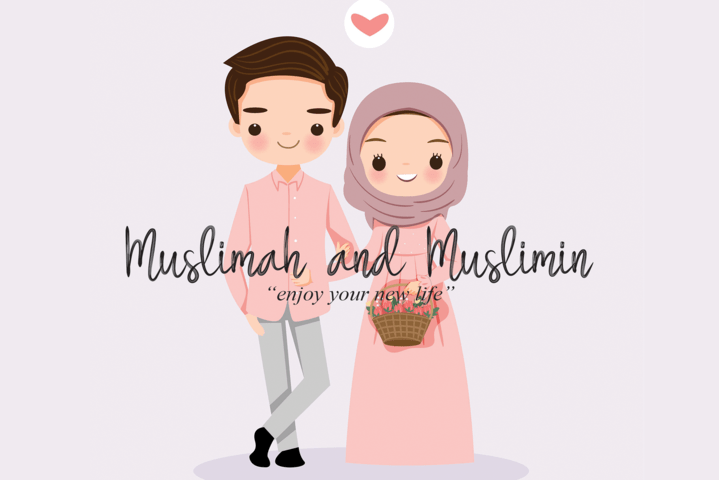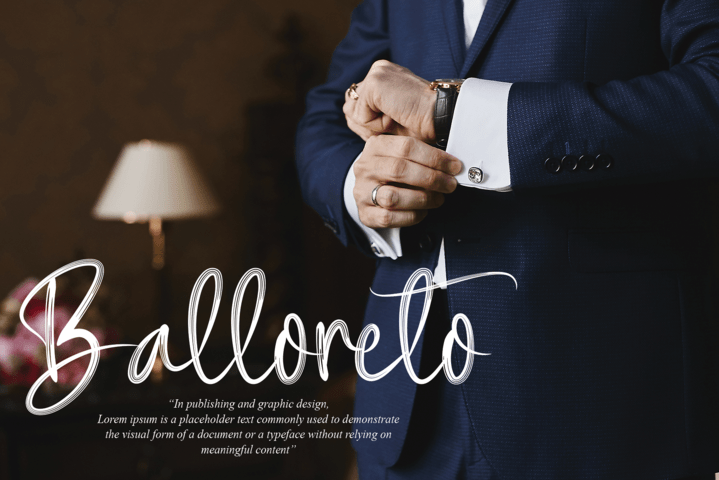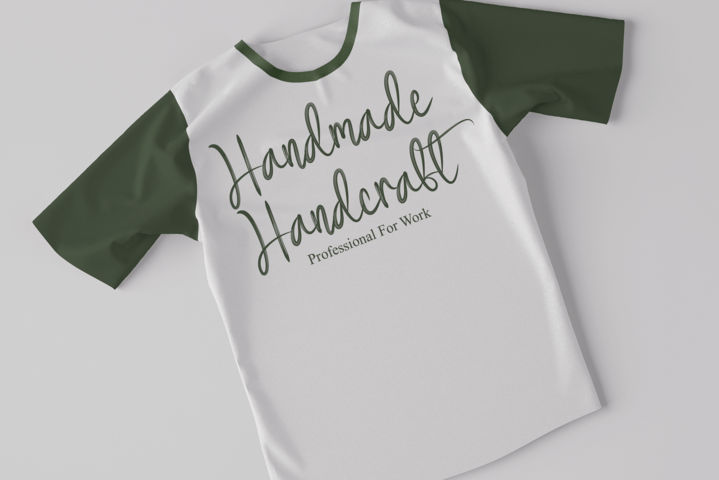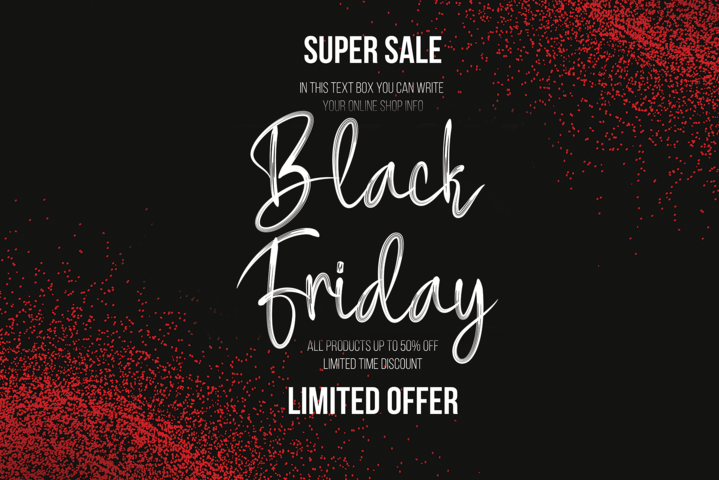
Handika Font
Handika Script Font
It’s a beautiful and light handwritten font with a unique feel and a stunning impact. It will add a luxury spark to any design project that you wish to create! Add it confidently to your favorite creations and let yourself be amazed by the outcome generated.